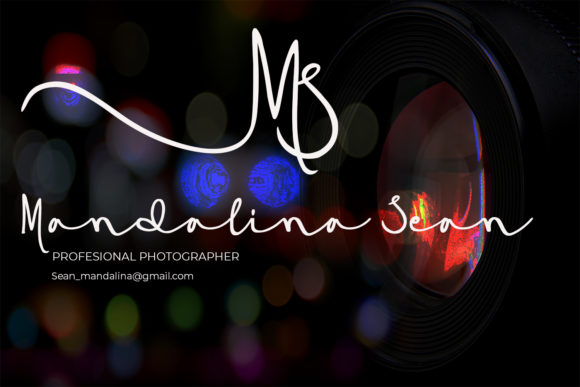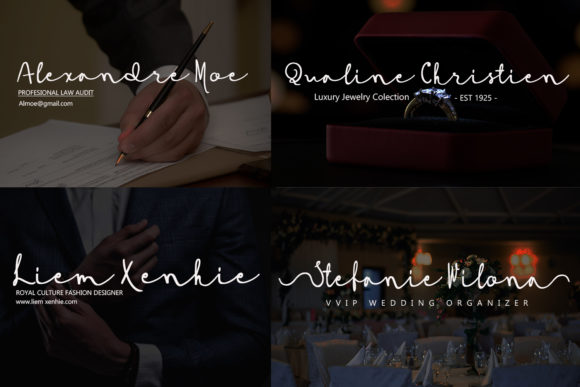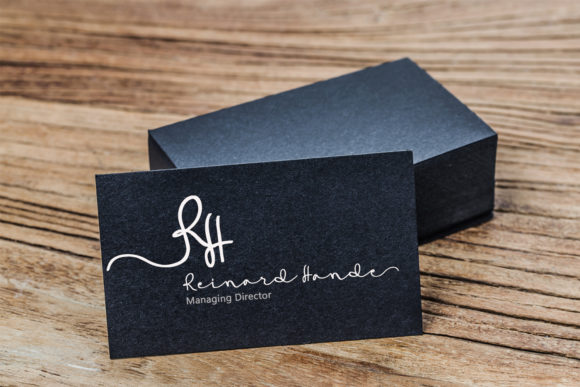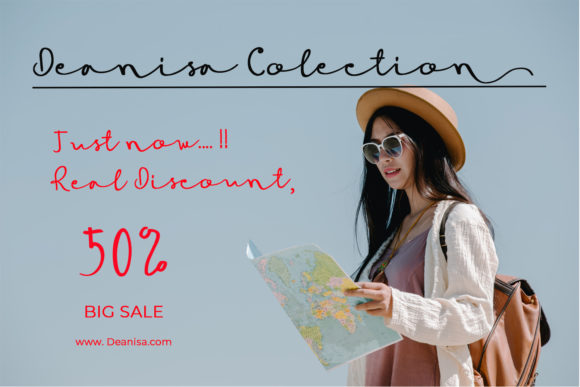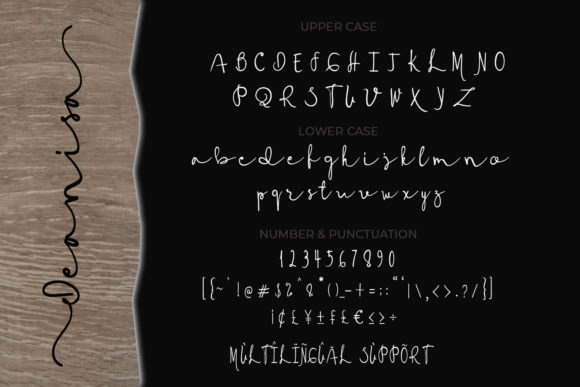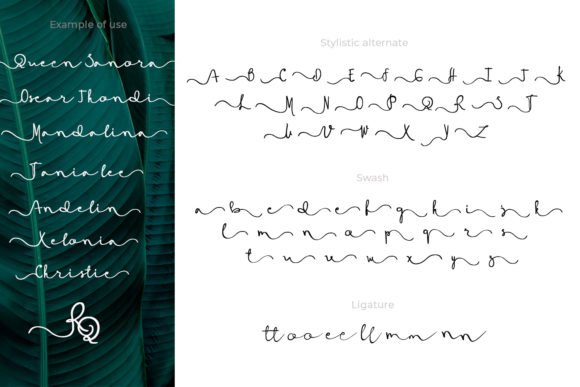
Introducing Deanisa Font: The Perfect Handwritten Font for Your Creative Projects
Are you looking for a beautiful and charming handwritten font to elevate your creative projects? Look no further than Deanisa Font! This stunning font is perfect for designers and crafters who want to add a touch of elegance and sophistication to their work. In this article, we’ll explore the features and benefits of Deanisa Font, and show you how to use it to create gorgeous wedding invitations, beautiful stationary art, eye-catching social media posts, and cute greeting cards.
What is Deanisa Font?
Deanisa Font is a beautiful and charming handwritten font that is designed to give your projects an authentic feel. With its unique and elegant lettering style, Deanisa Font is perfect for creating a wide range of creative projects, from wedding invitations and stationary art to social media posts and greeting cards. Whether you’re a designer, crafter, or DIY enthusiast, Deanisa Font is a must-have font in your collection.
Features of Deanisa Font
So, what makes Deanisa Font so special? Here are just a few of its key features:
- Beautiful Handwritten Style: Deanisa Font features a stunning handwritten style that is both elegant and charming.
- Authentic Feel: With its unique lettering style, Deanisa Font gives your projects an authentic feel that’s perfect for creating handmade-style crafts.
- Versatile: Deanisa Font is perfect for creating a wide range of creative projects, from wedding invitations and stationary art to social media posts and greeting cards.
Using Deanisa Font for Wedding Invitations
Wedding invitations are one of the most popular uses for Deanisa Font, and for good reason. This beautiful font is perfect for creating stunning wedding invitations that set the tone for your special day. With its elegant and charming lettering style, Deanisa Font is sure to impress your guests and make your wedding invitations truly unforgettable.
Here are a few tips for using Deanisa Font for wedding invitations:
- Pair with a Simple Background: Pair Deanisa Font with a simple background to make your invitation text stand out.
- Add Some Florals: Add some beautiful florals or greenery to your invitation to give it a romantic and whimsical feel.
- Use a Ribbon or Lace: Use a ribbon or lace to add a touch of elegance and sophistication to your invitation.
Using Deanisa Font for Stationary Art
Deanisa Font is also perfect for creating beautiful stationary art, such as notecards, journals, and planners. With its unique and elegant lettering style, Deanisa Font adds a touch of sophistication and elegance to any stationary art project.
Here are a few tips for using Deanisa Font for stationary art:
- Pair with a Bold Color: Pair Deanisa Font with a bold color to make your stationary art stand out.
- Add Some Illustrations: Add some beautiful illustrations or doodles to your stationary art to give it a playful and whimsical feel.
- Use a Variety of Sizes: Use a variety of sizes and fonts to add visual interest to your stationary art.
Using Deanisa Font for Social Media Posts
Deanisa Font is also perfect for creating eye-catching social media posts, such as Instagram quotes, Facebook posts, and Pinterest graphics. With its elegant and charming lettering style, Deanisa Font is sure to grab the attention of your followers and make your social media posts truly unforgettable.
Here are a few tips for using Deanisa Font for social media posts:
- Pair with a Beautiful Image: Pair Deanisa Font with a beautiful image to make your social media post stand out.
- Use a Bold Color: Use a bold color to make your text stand out and grab attention.
- Keep it Short and Sweet: Keep your text short and sweet to make it easy to read and understand.
Using Deanisa Font for Greeting Cards
Finally, Deanisa Font is perfect for creating cute and charming greeting cards for any occasion, from birthdays and holidays to weddings and anniversaries. With its elegant and charming lettering style, Deanisa Font adds a touch of sophistication and elegance to any greeting card.
Here are a few tips for using Deanisa Font for greeting cards:
- Pair with a Simple Background: Pair Deanisa Font with a simple background to make your text stand out.
- Add Some Illustrations: Add some beautiful illustrations or doodles to your greeting card to give it a playful and whimsical feel.
- Use a Ribbon or Lace: Use a ribbon or lace to add a touch of elegance and sophistication to your greeting card.
| Font Name | Deanisa Font |
| Author | Gie Studio |
In conclusion, Deanisa Font is a beautiful and charming handwritten font that is perfect for designers and crafters who want to add a touch of elegance and sophistication to their creative projects. With its unique and elegant lettering style, Deanisa Font is perfect for creating gorgeous wedding invitations, beautiful stationary art, eye-catching social media posts, and cute greeting cards. So why wait? Get inspired by Deanisa Font today and start creating your own stunning creative projects!